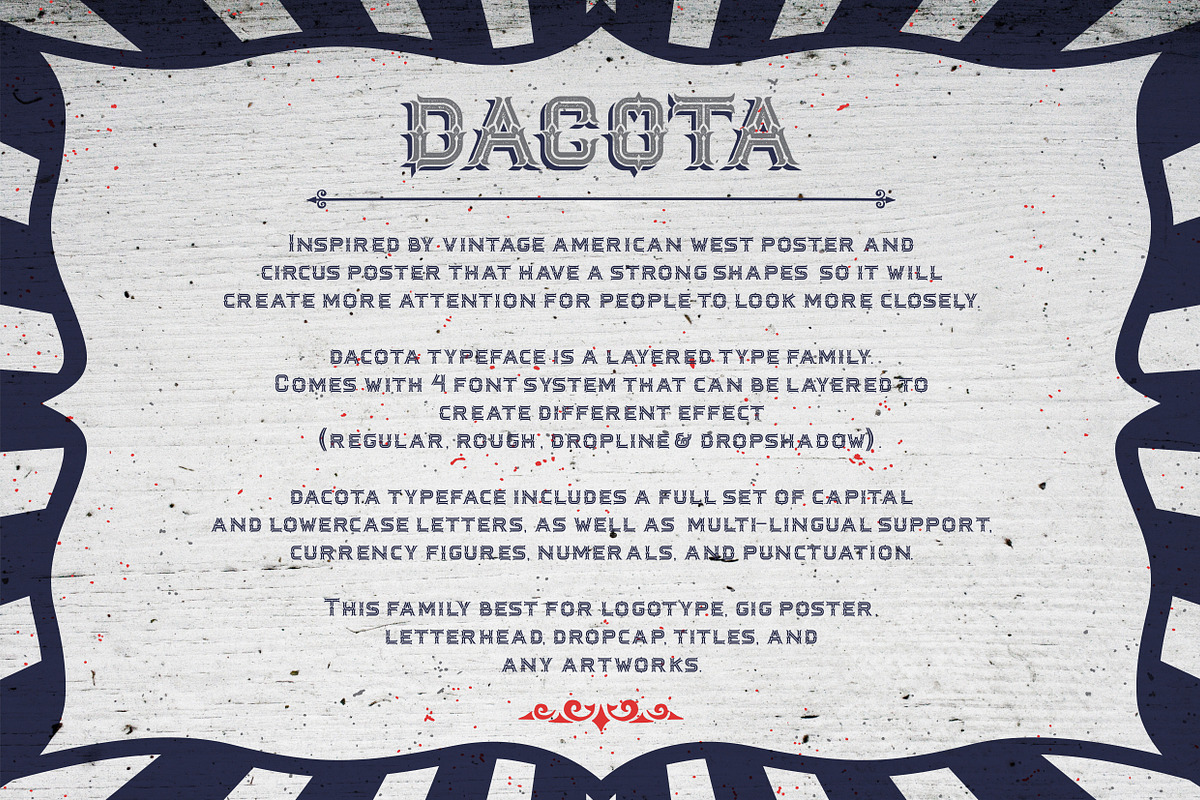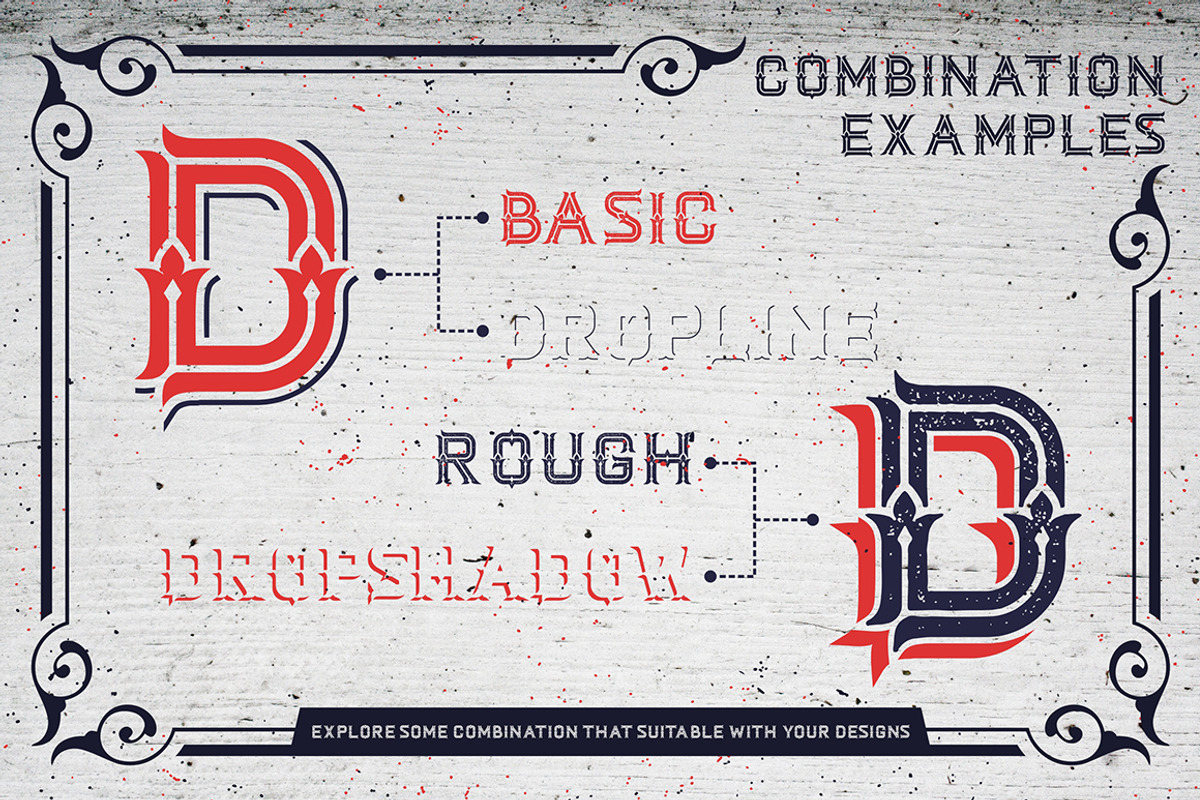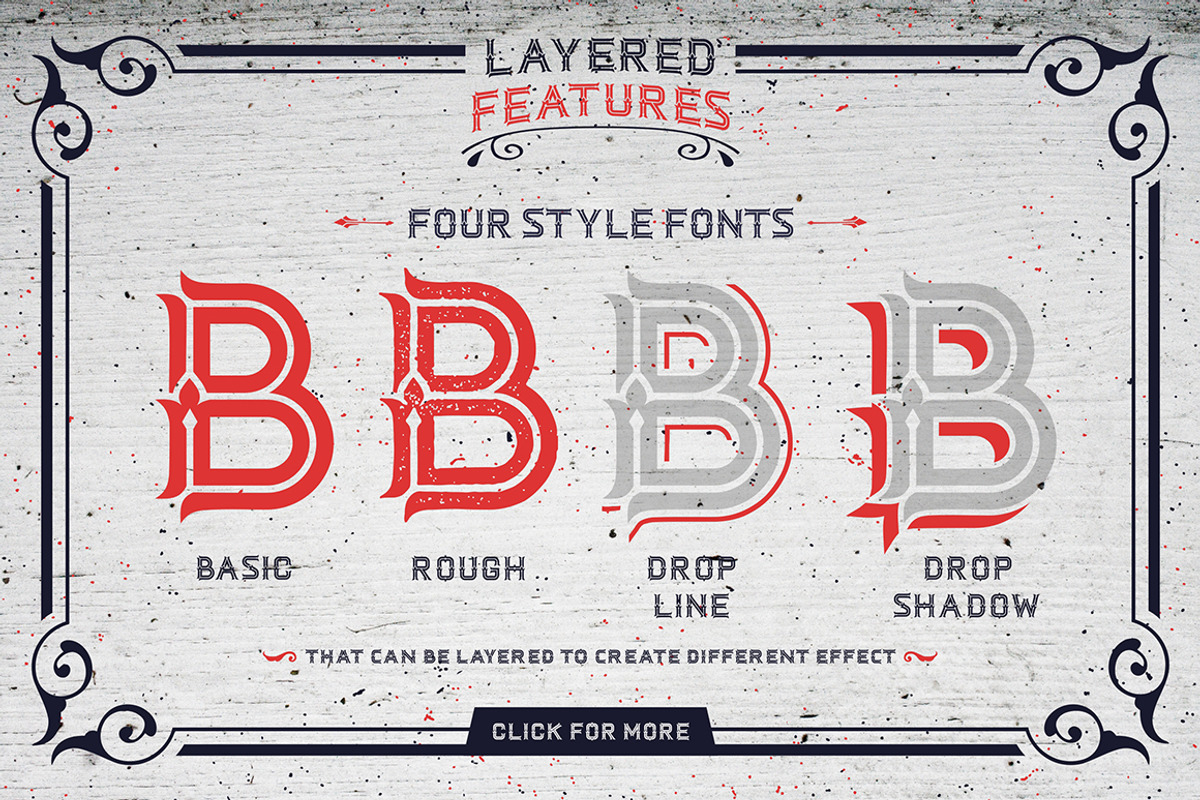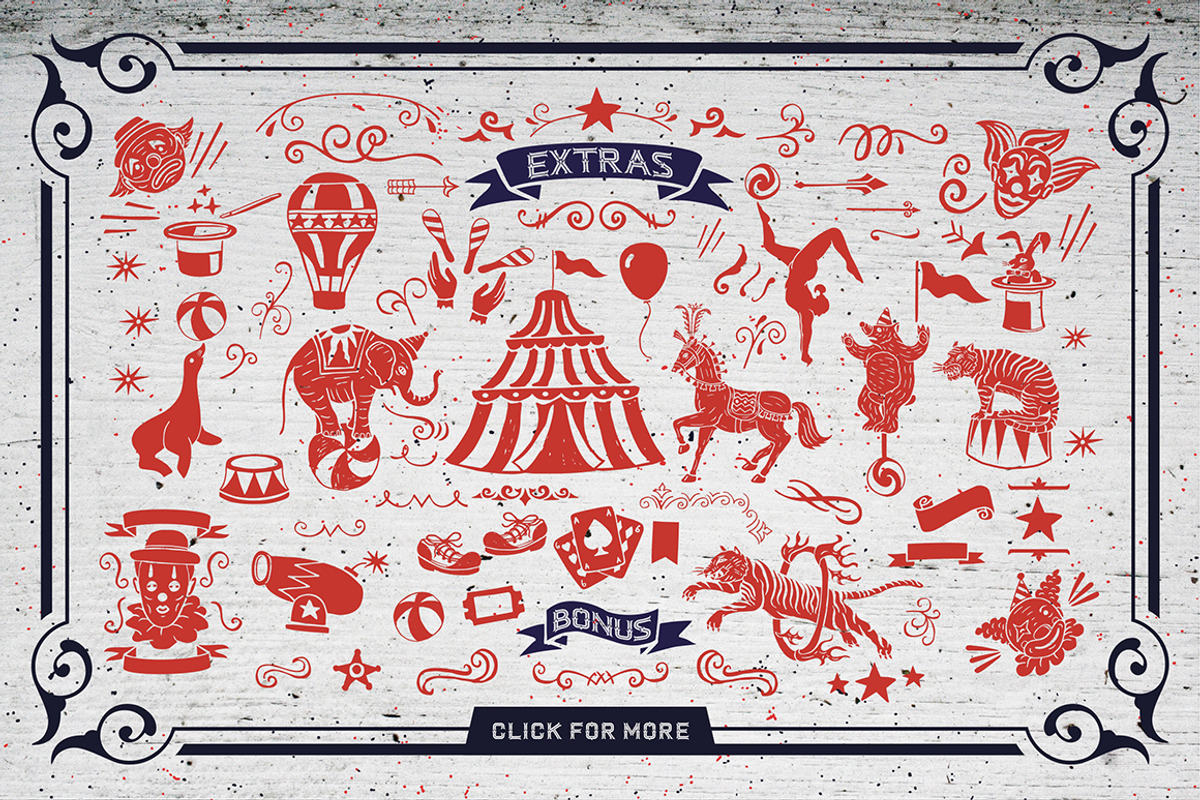
Dacota Layered Typeface + Extras
Dacota Layered Typeface + Extras by Heybing Supply Co. is a font selected for branding, posters, packaging, typography.
- Comes with 4 font system that can be layered to create different effect (basic, rough , dropline & dropshadow).
- Dacota Typeface includes a full set of capital and lowercase letters, as well as multi-lingual support, currency figures, numerals, and punc
- Comes with 4 font system that can be layered to create different effect (basic, rough , dropline & dropshadow).
- Dacota Typeface includes a full set of capital and lowercase letters, as well as multi-lingual support, currency figures, numerals, and punc
- Layered font system
- Character Set A-Z
Why Dacota Layered Typeface + Extras is worth a look
Dacota Layered Typeface + Extras by Heybing Supply Co. fits naturally into Branding, posters, packaging, typography.